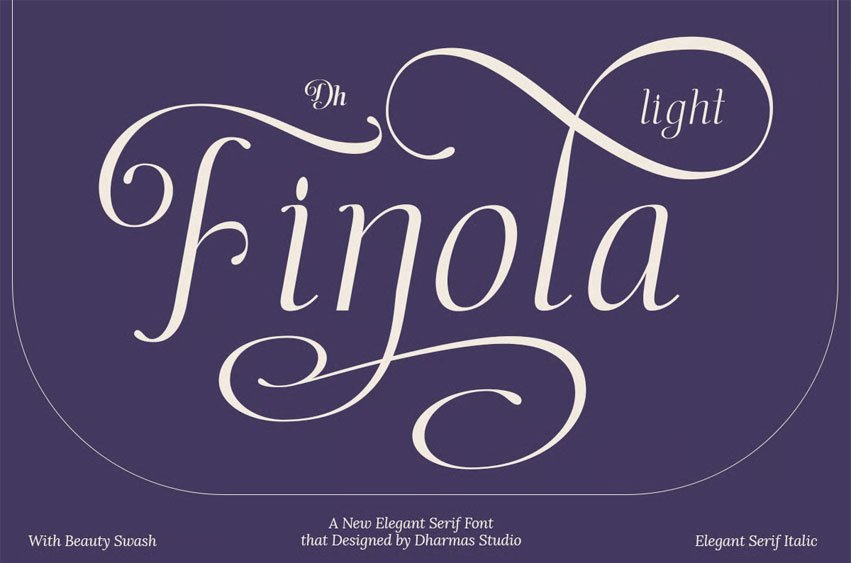
Dh Finola Font is a chic serif font with a graceful and aesthetic presence. Inspired by the elegance of classical design and modern editorial styles, this lightweight adds subtlety and sophistication to any visual concept. It’s perfect for wedding stationery and fashion lookbooks.
With refined curves, stylish ligatures, and graceful swashes, Finola Light creates an airy, elevated feel in your design. Complete with uppercase and lowercase characters, numerals, punctuation, and a range of alternates, this font delivers expressive versatility in a light and elegant package.
- 1 Weight: Light
- 30+ Swash Alternates and Ligatures
- Letters, numbers, symbols, punctuation, special alternates
Multilingual Characters available for:
Afrikaans, Albanian, Asu, Basque, Bemba, Bena, Breton, Chiga, Cornish, Dutch, English, Estonian, Filipino, Finnish, Friulian, Galician, German, Gusii, Indonesian, Irish, Italian, Kabuverdianu, Kalenjin, Kinyarwanda, Luo, Luxembourgish, Luyia, Machame, Makhuwa-Meetto, Makonde, Malagasy, Manx, Morisyen, North Ndebele, Nyankole, Oromo, Portuguese, Quechua, Romansh, Rombo, Rundi, Rwa, Samburu, Sango, Sangu, Scottish Gaelic, Sena, Shambala, Shona, Soga, Somali, Spanish, Swahili, Swedish, Swiss.